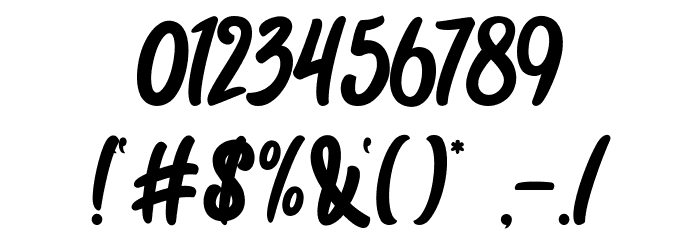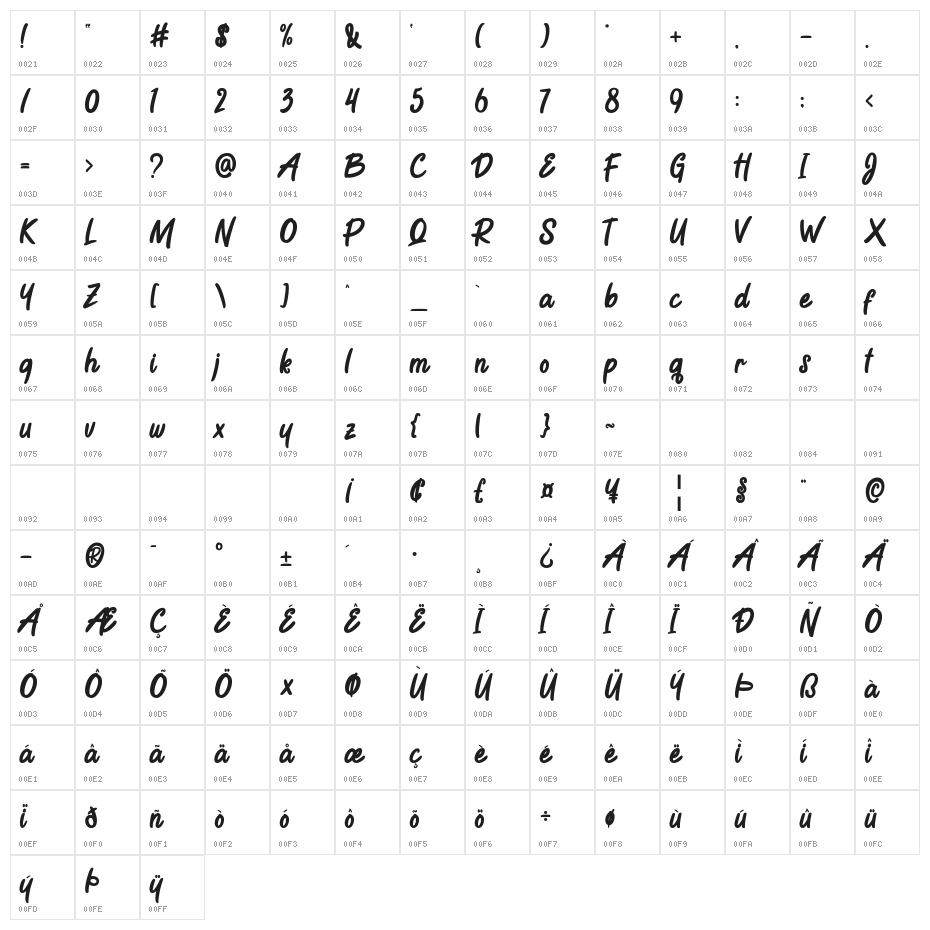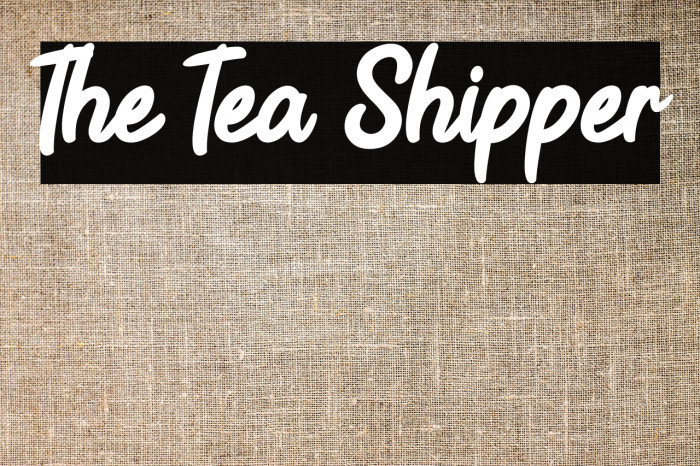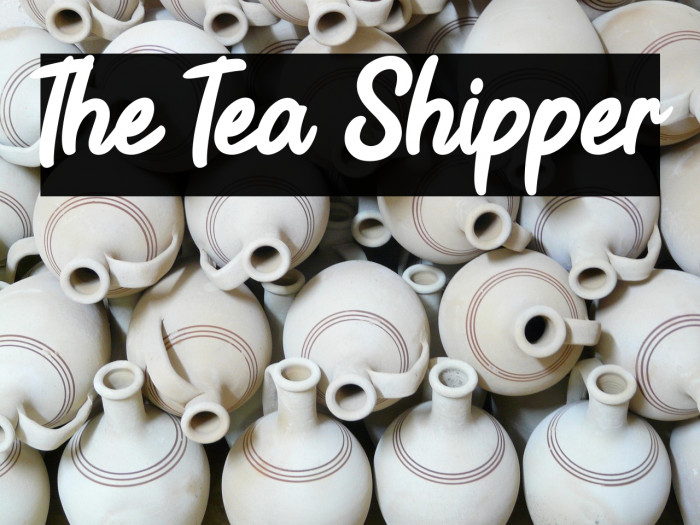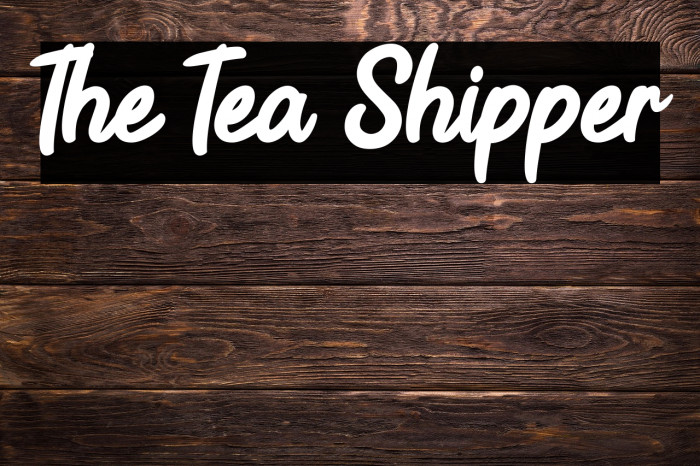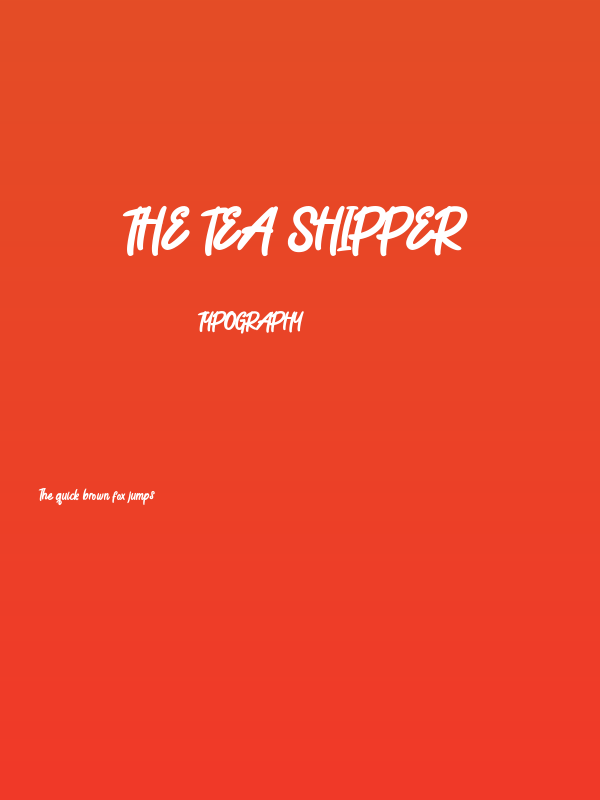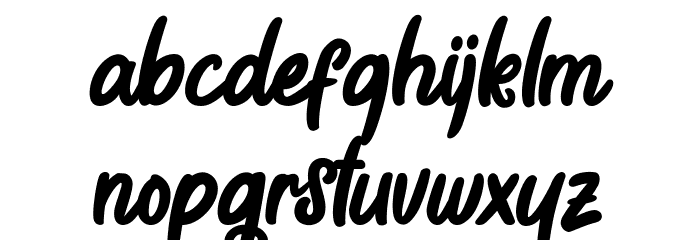
The Tea Shipper Font
The Tea Shipper Description
This font features a bold and dynamic script style, characterized by its fluid and connected letterforms that mimic the natural flow of handwriting. The uppercase letters are particularly striking, with exaggerated curves and a sense of motion that adds energy to any text. The lowercase letters maintain a consistent style, offering a harmonious blend with the uppercase. Numbers and special characters are designed to complement the overall aesthetic, ensuring versatility across different uses. The font's playful yet sophisticated appearance makes it suitable for a variety of creative projects.